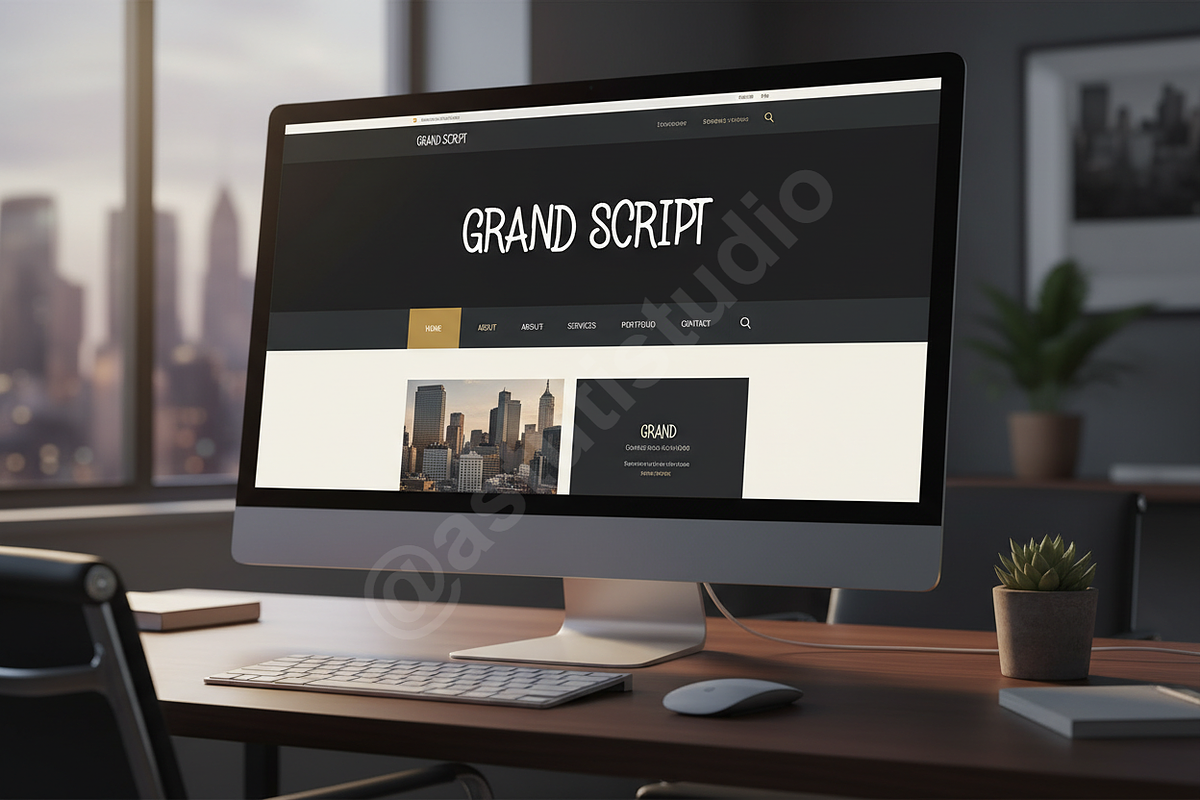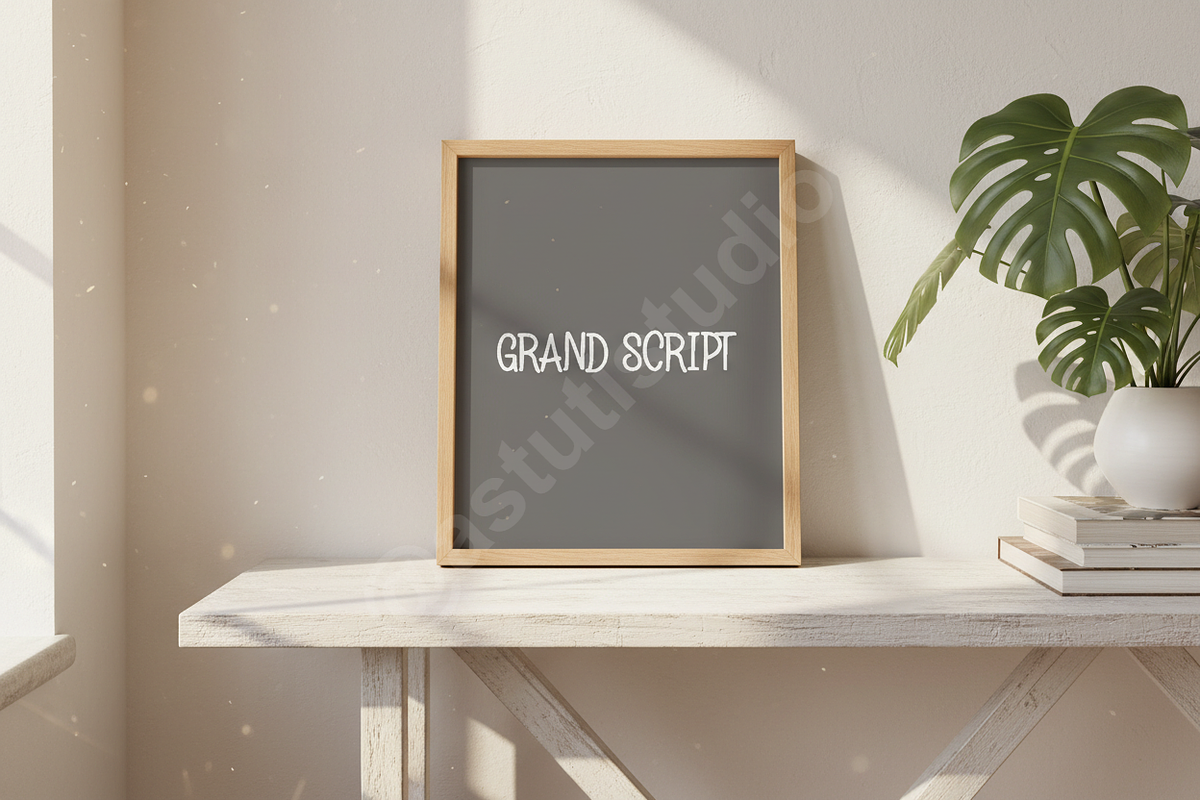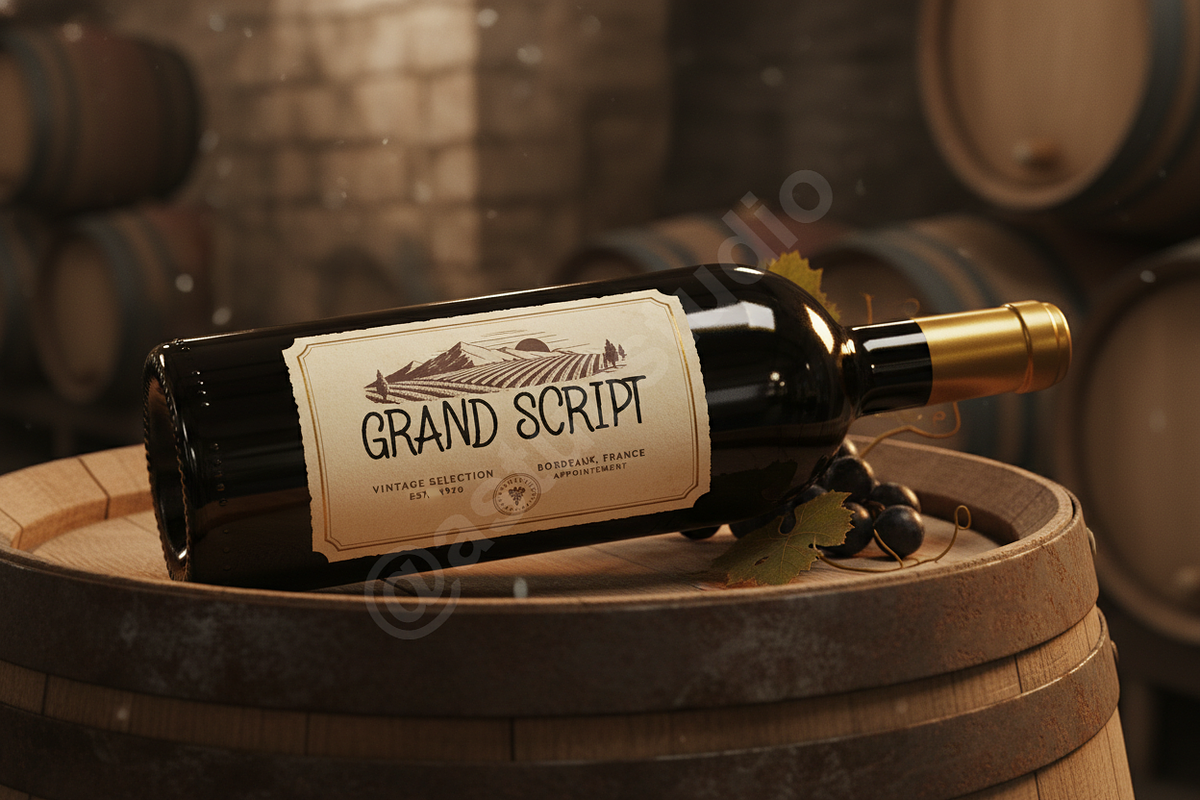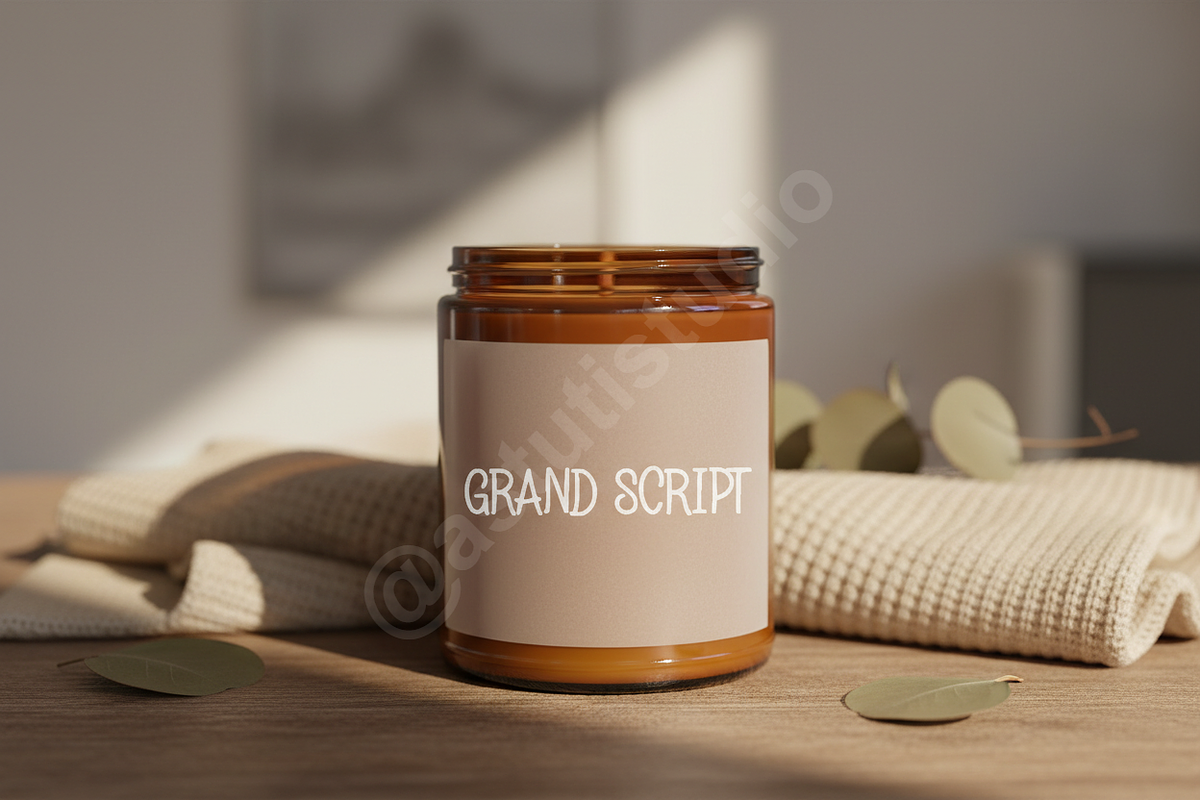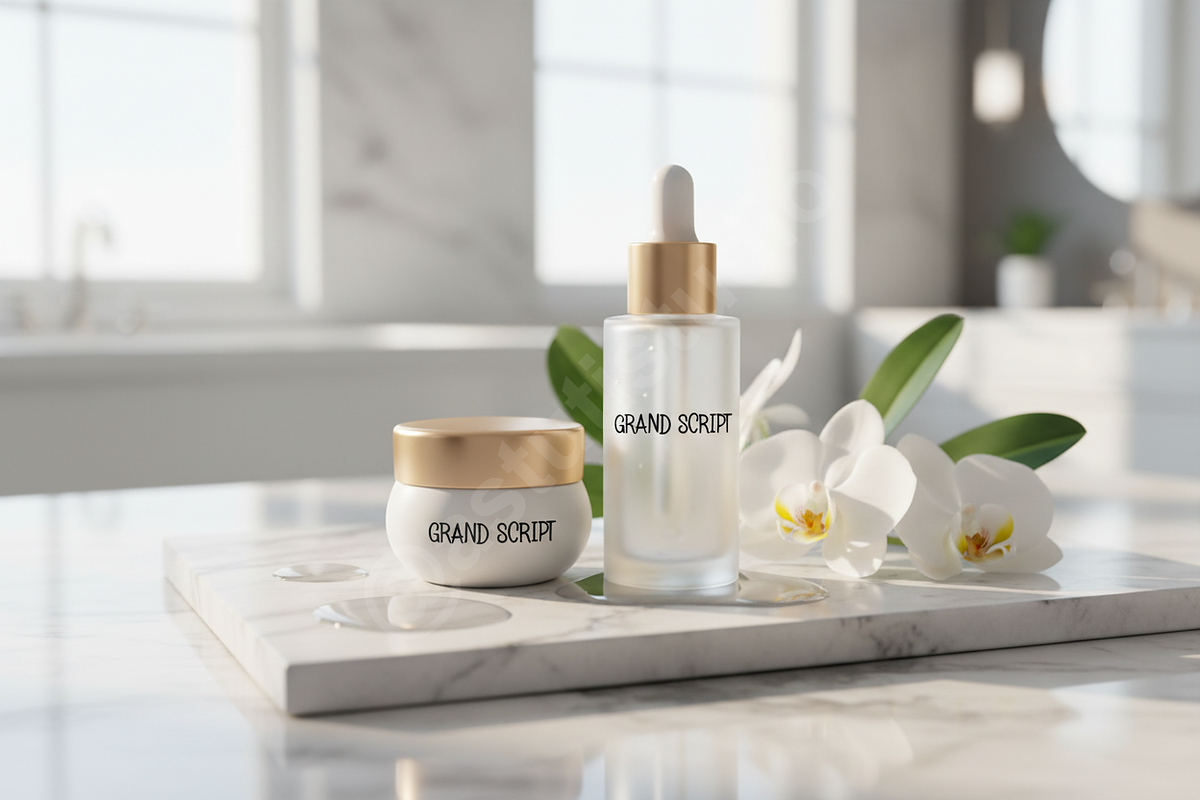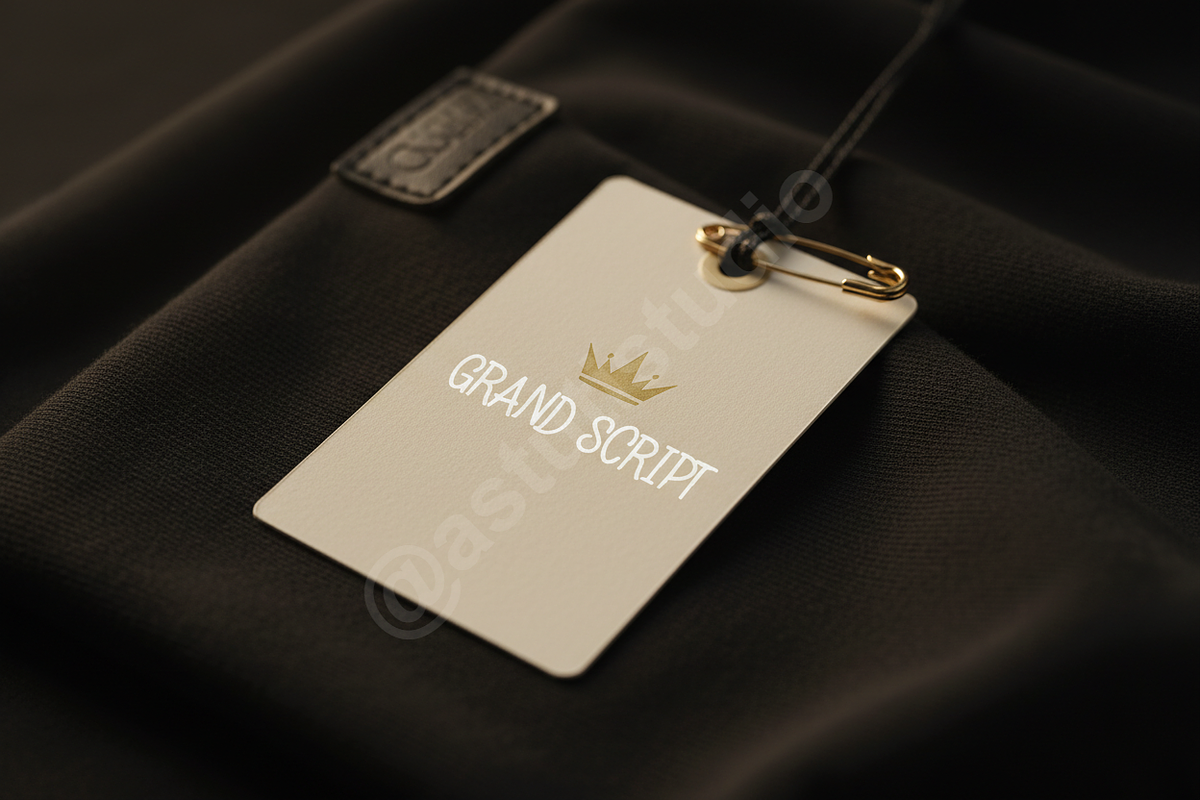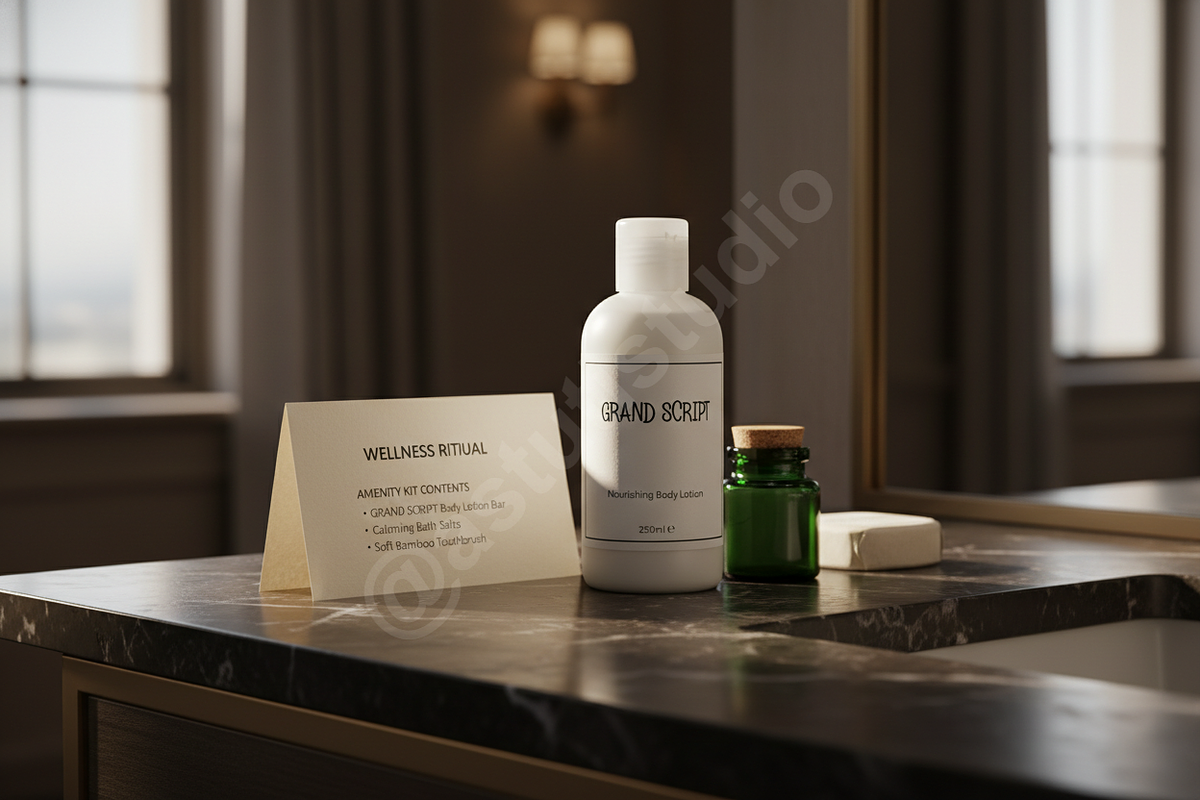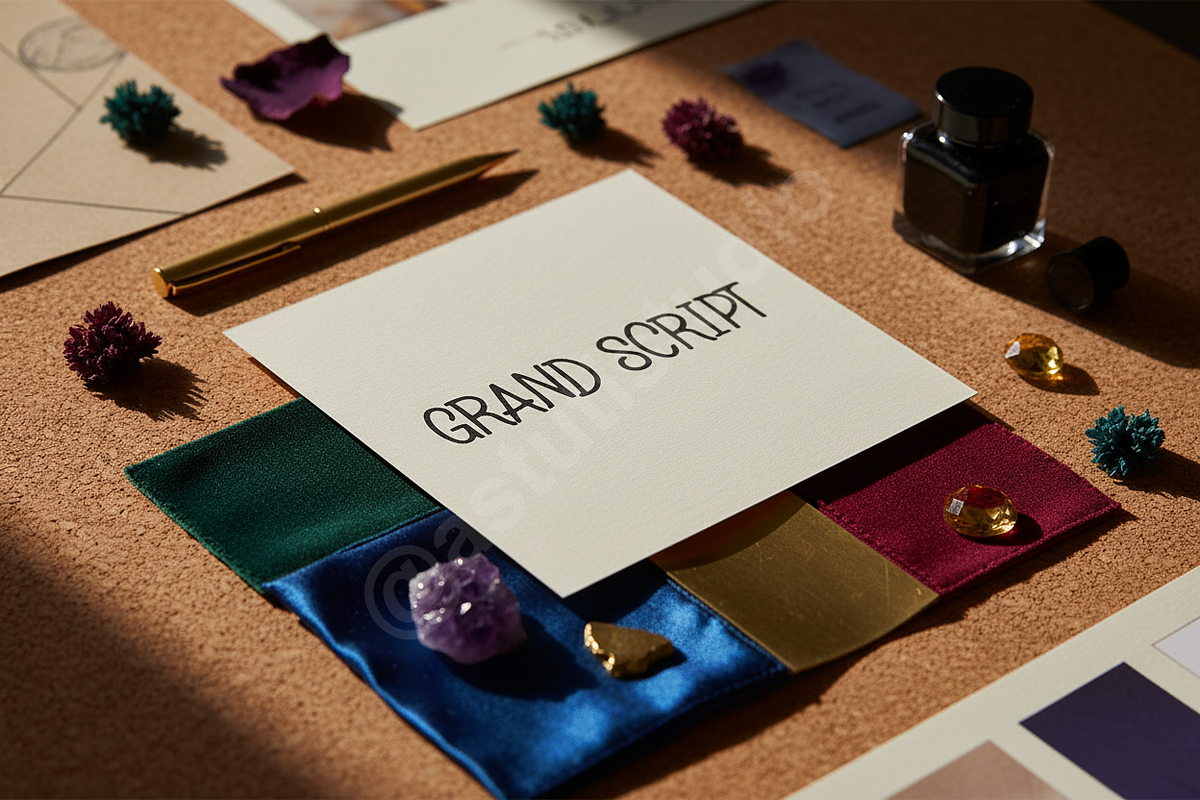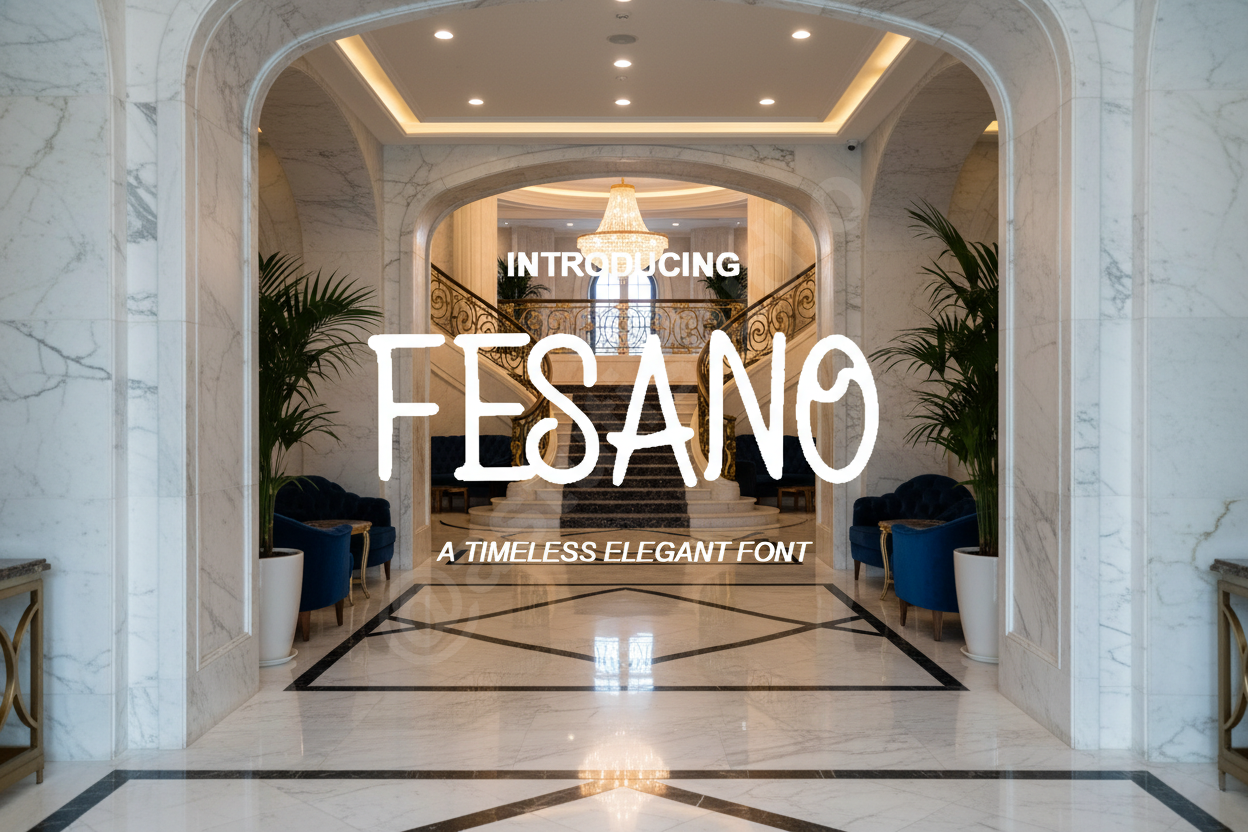
Fesano - Elegant Sans Serif Typeface
Introducing Fesano, a meticulously crafted sans-serif typeface exuding sophistication and timeless elegance. Designed as a premium studio product, Fesano is the quintessential choice for projects demanding an elevated aesthetic. Its refined letterforms and balanced proportions make it perfect for luxury branding, prestigious editorial design, and creating impactful, stylish social media content that captivates.
- Professional & Elegant Design: Clean lines and subtle curves for a refined aesthetic.
- Versatile Application: Ideal for headlines, body text, logos, and digital displays.
- Optimal Readability: Engineered for clarity and legibility across various sizes.
- Modern & Timeless Appeal: A harmonious blend of contemporary style and classic grace.